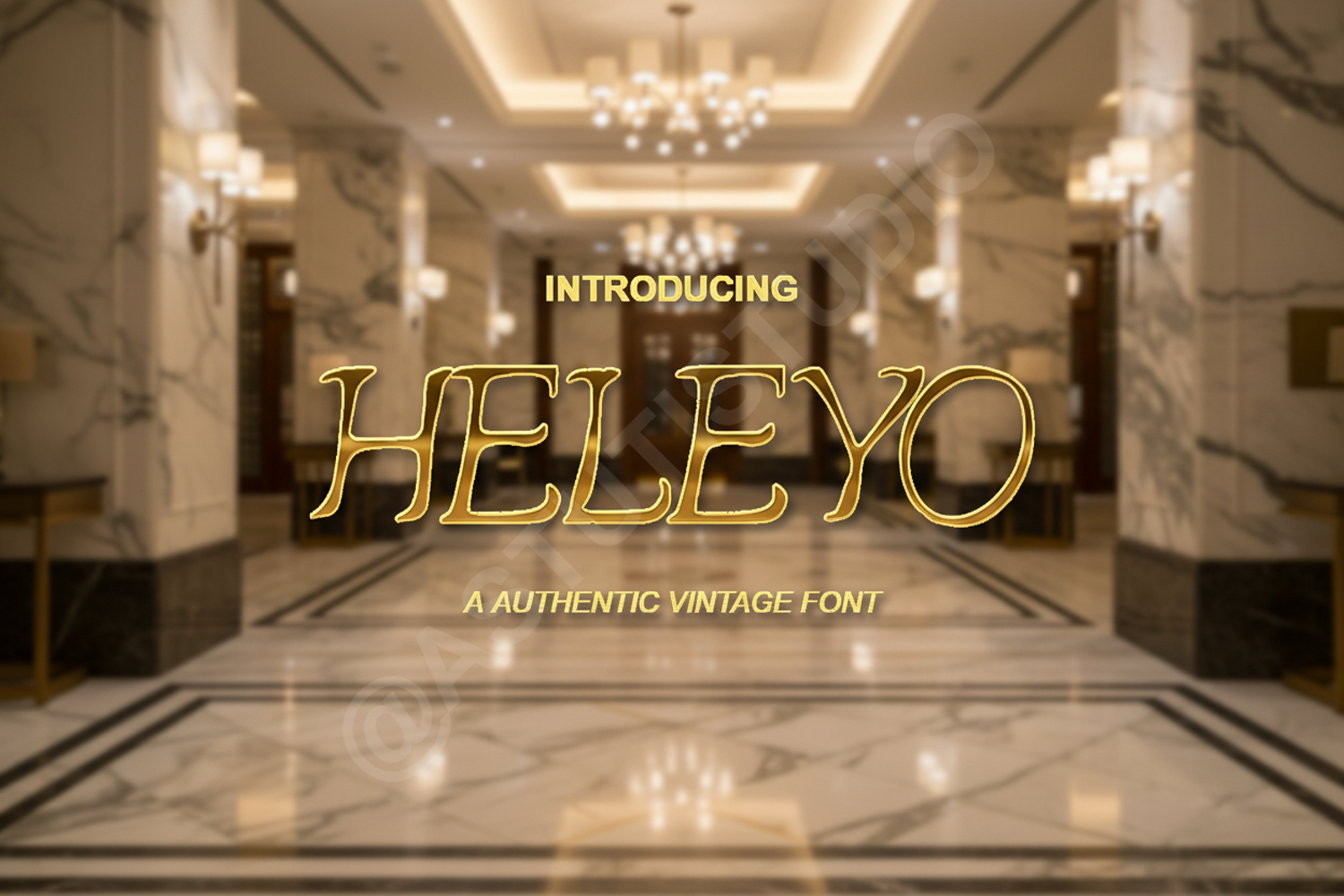
Heleyo - Elegant Modern Serif Display Font
Heleyo
Heleyo is a premium serif typeface that blends classic elegance with modern minimalism. Designed with precise curves and high-contrast strokes, this font exudes a sense of luxury and sophistication, making it an essential addition to any designer's toolkit for projects that require a touch of class.
- Branding and Visual Identity: Perfect for high-end luxury brands and minimalist logos.
- Wedding Stationery: Create timeless invitations, save-the-dates, and elegant place cards.
- Editorial Design: Ideal for magazine headers, book covers, and stylish layout spreads.
- Social Media: Elevate your Instagram quotes and Pinterest graphics with a professional aesthetic.
- Product Packaging: Enhance your boutique packaging design with a sophisticated typographic feel.